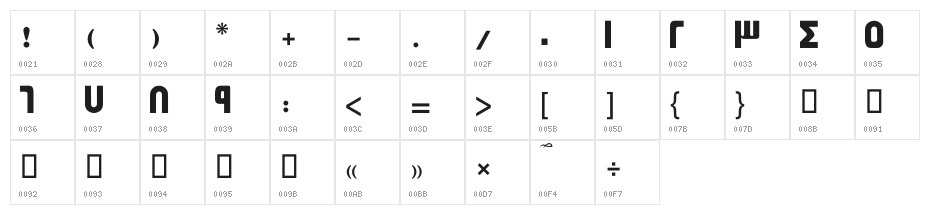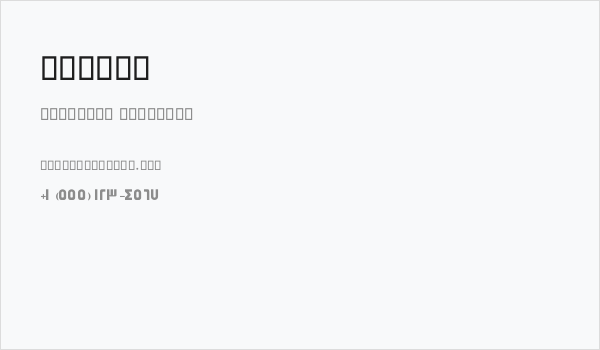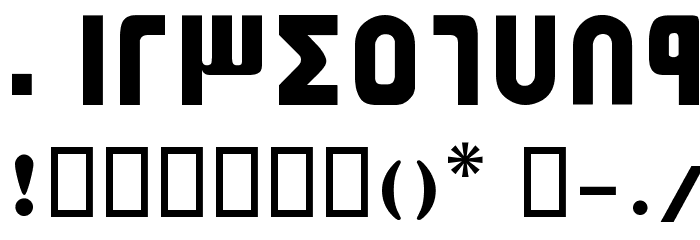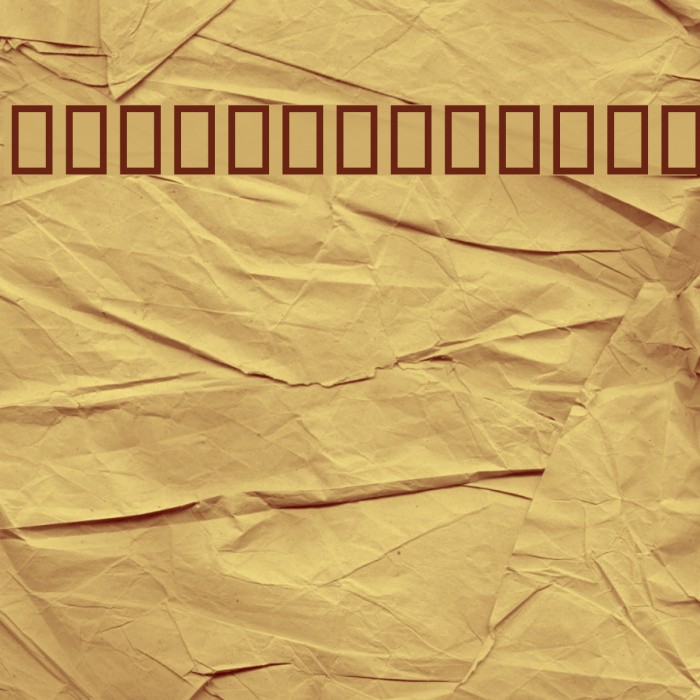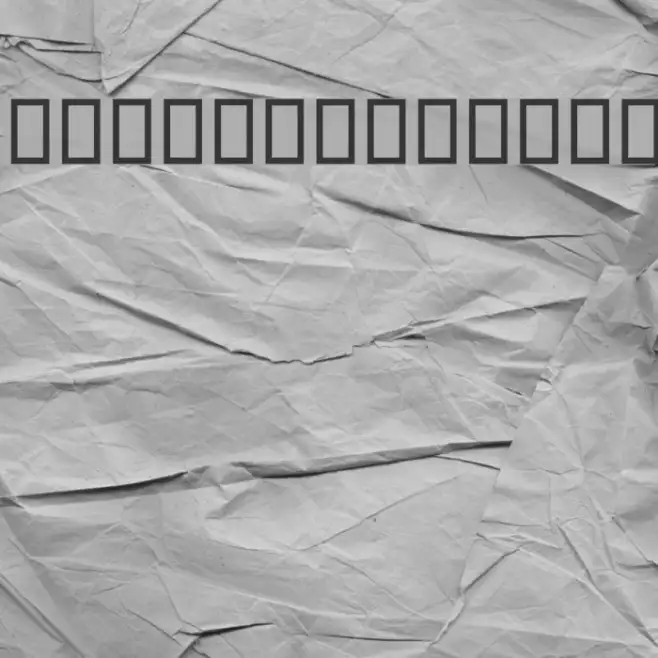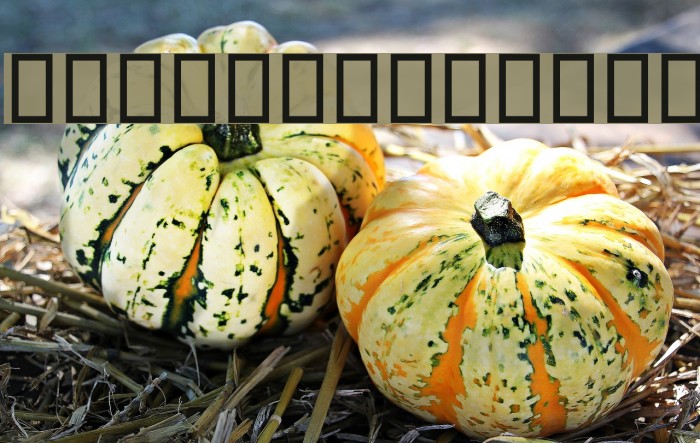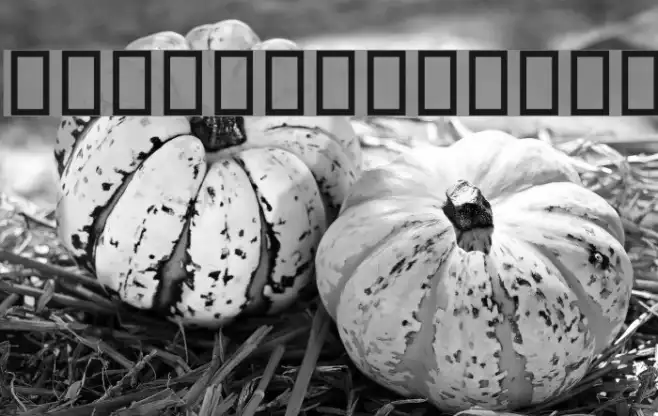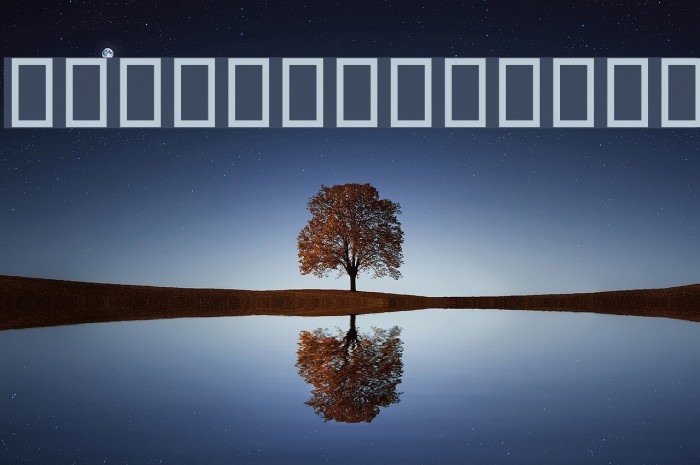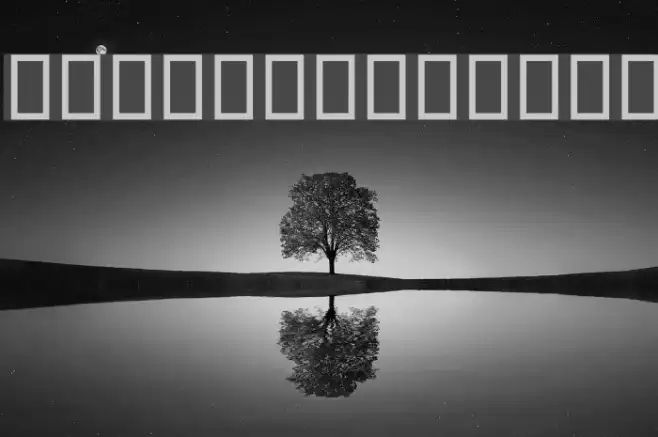
Elyaas Font
Elyaas Description
This font features a bold and geometric design, characterized by its blocky and angular letterforms. The uppercase letters are uniform in height, creating a strong and cohesive appearance. The lowercase letters maintain the same geometric style, with consistent stroke widths that emphasize a modern aesthetic. The numerals are similarly styled, with a focus on clarity and readability. Special characters are designed to match the overall boldness and geometric nature of the font, making it suitable for impactful and attention-grabbing designs.
| Proposed Projects | Ideal for modern branding, posters, headlines, and digital interfaces where a strong visual impact is desired. |